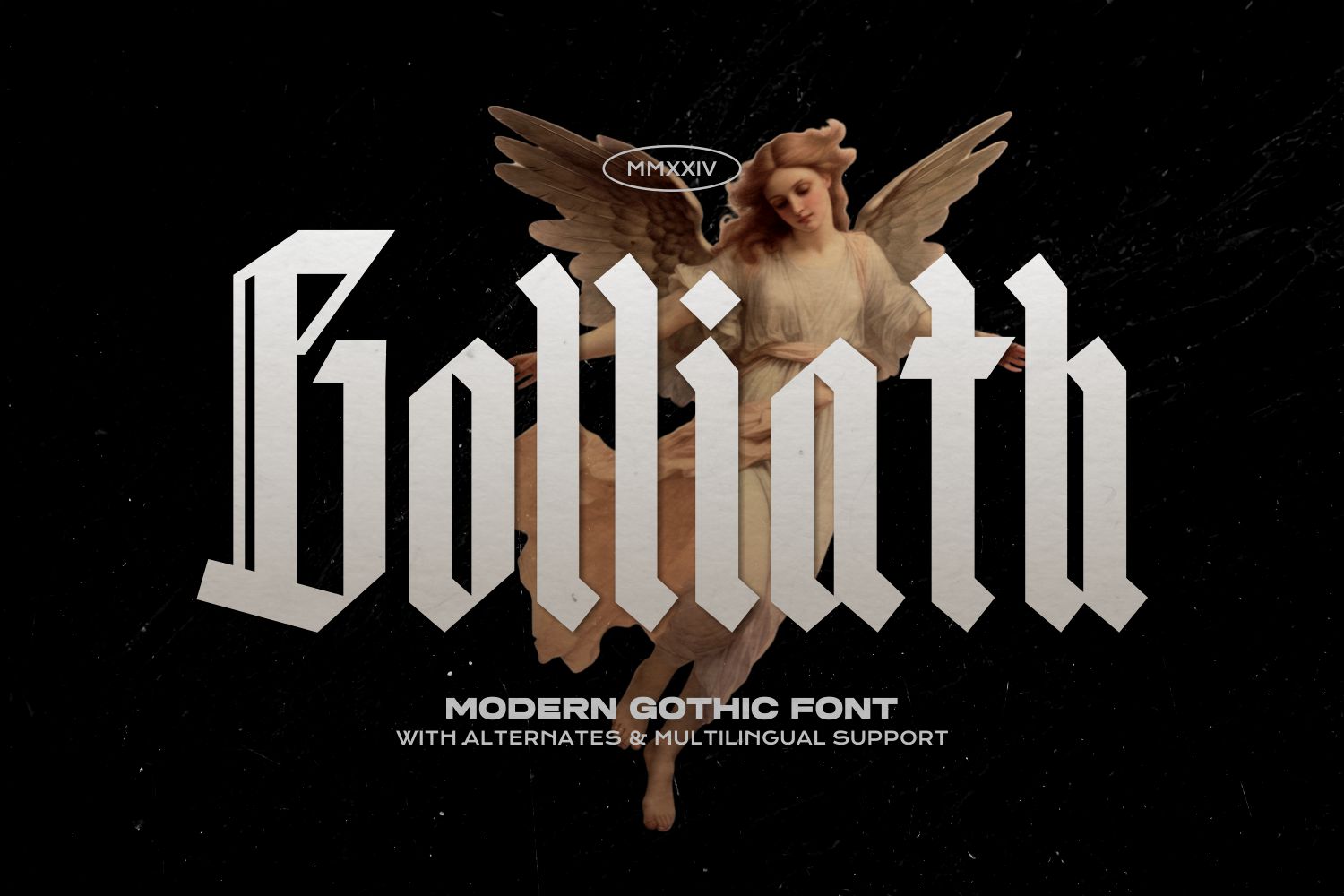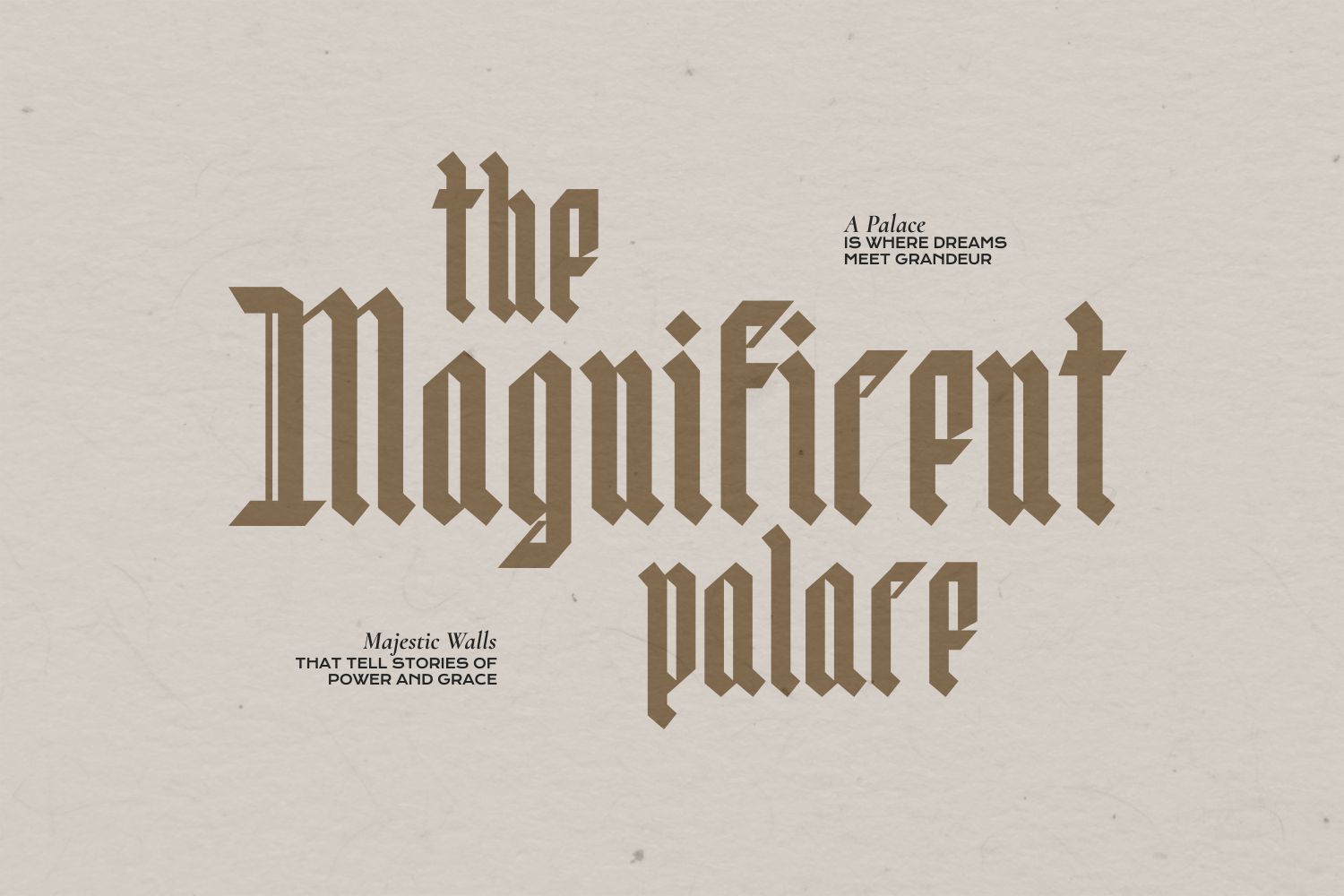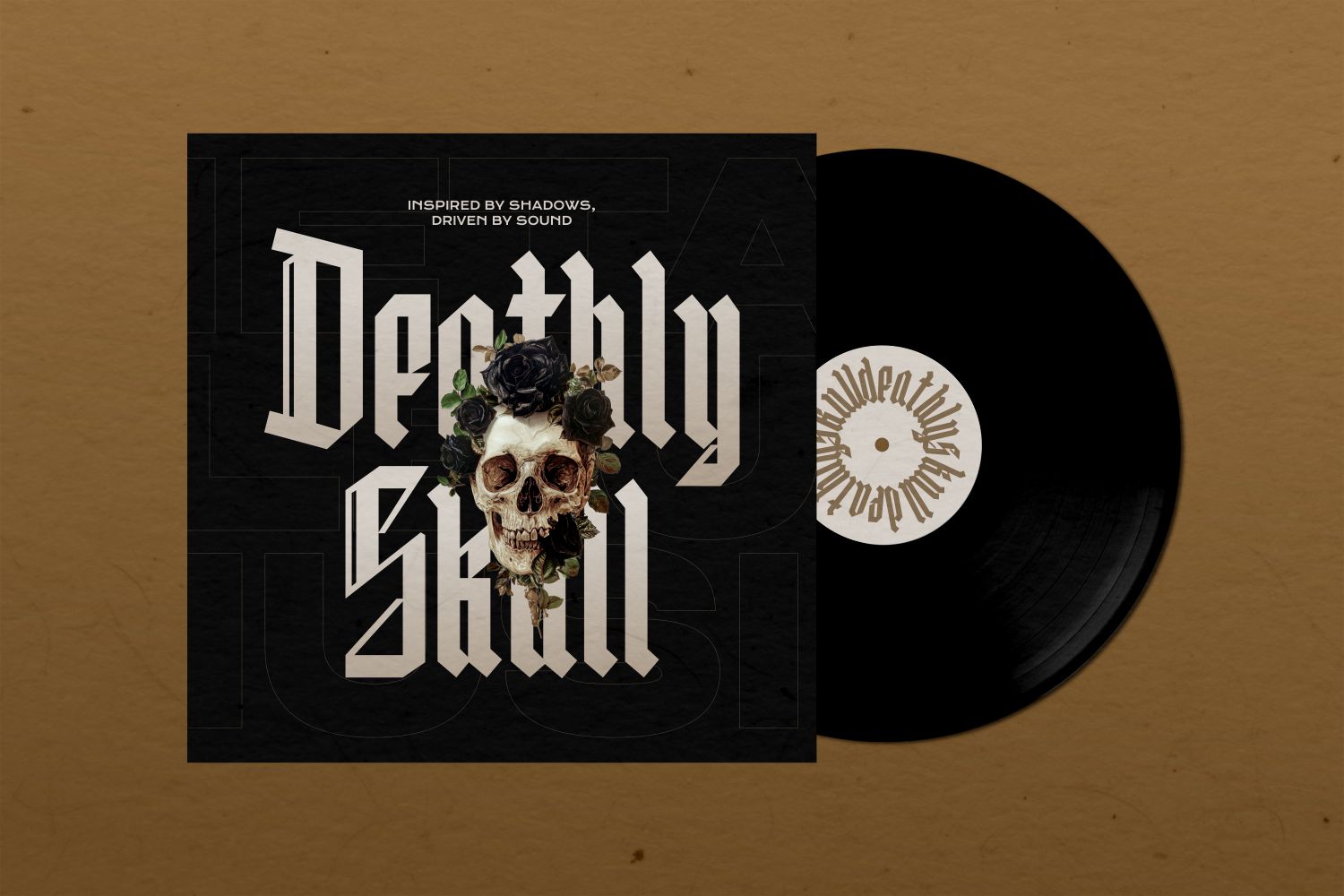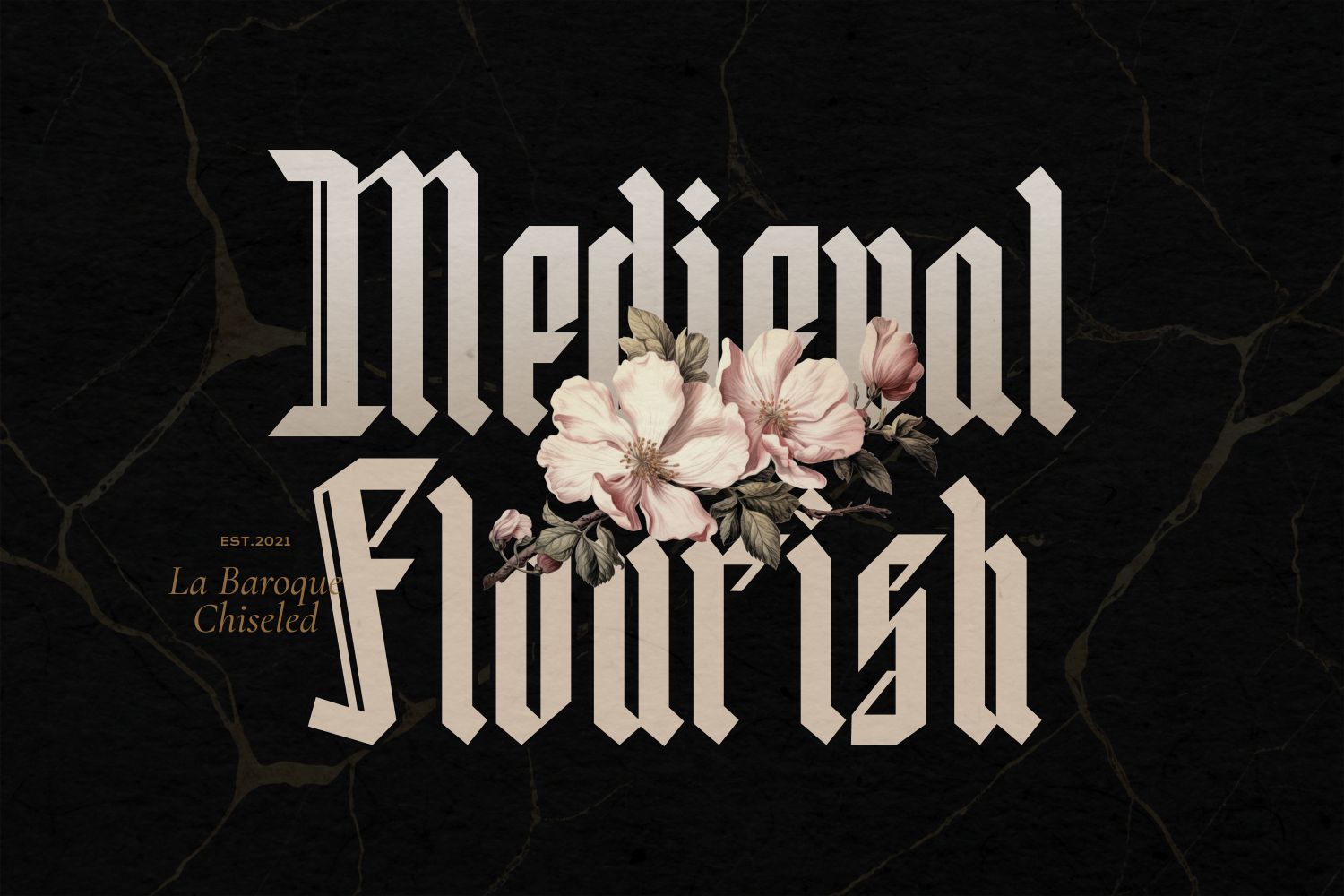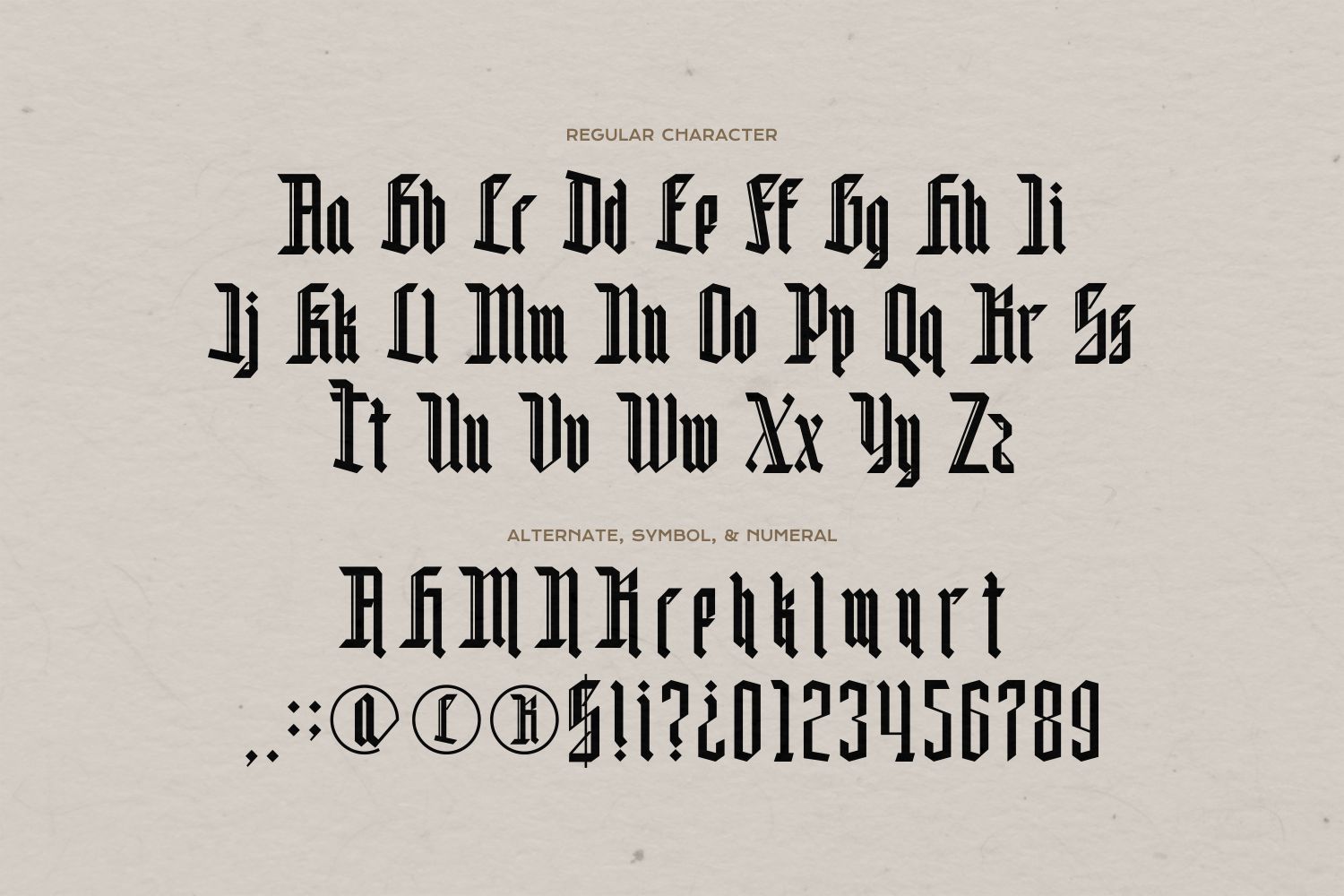
Golliath is a modern gothic display font that brings a bold and powerful medieval-inspired aesthetic into contemporary design. With its sharp edges, elongated strokes, and strong presence, this typeface radiates authority and timeless elegance. It is designed with alternate characters and multilingual support, giving designers the flexibility to create striking titles, logos, and branding that stand out with a touch of gothic drama.
Perfect for album covers, posters, editorial layouts, and fashion branding, Golliath delivers a balance of dark sophistication and modern appeal. Its commanding look makes it ideal for projects that require a sense of grandeur, strength, and artistry, while its stylistic alternates provide endless creative possibilities for customization.
Golliath